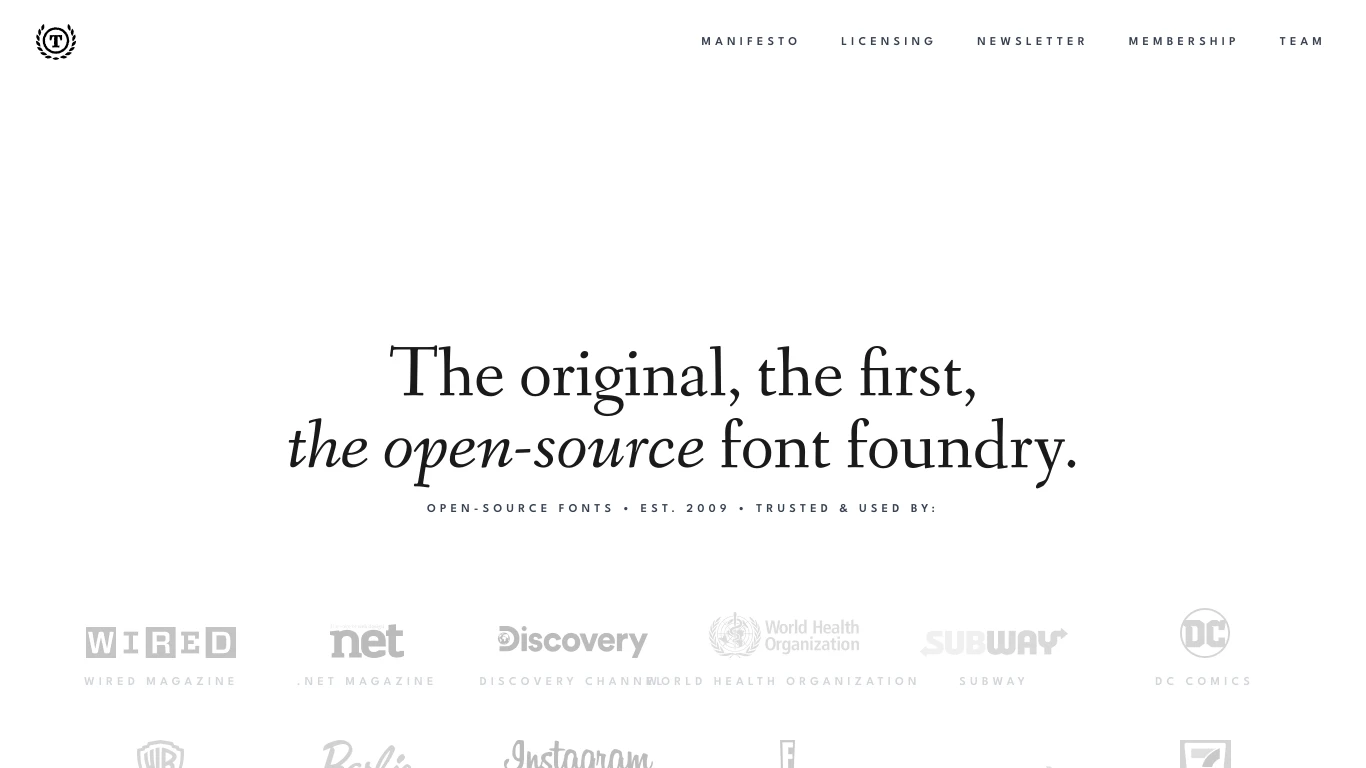
League of Movable Type
2009
The League of Moveable Type, established in 2009 by Micah Rich, is a pioneering open-source type foundry. Originating from Rich's design studio, A Good Company, the League aims to elevate web typography standards by offering high-quality, free, and open-source fonts under the Open Font License. Notable typefaces include Raleway, League Gothic, and Chunk. The League's fonts have been utilized by prominent organizations such as Wired Magazine, Discovery Channel, and the World Health Organization. Their commitment to open-source principles has significantly influenced modern web typography.